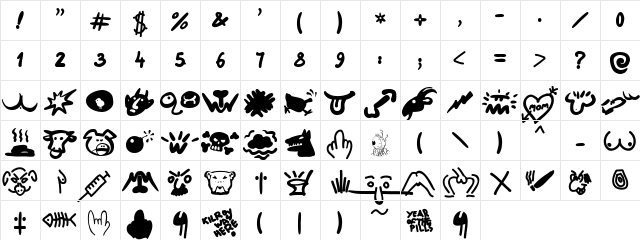
HardTalk Regular
Design Context for HardTalk Typeface
HardTalk is a composed and adaptable typeface that performs quietly and consistently across a wide range of design contexts.
Pro Tip: Use HardTalk in both headline and body roles to test its range before committing to a single application.